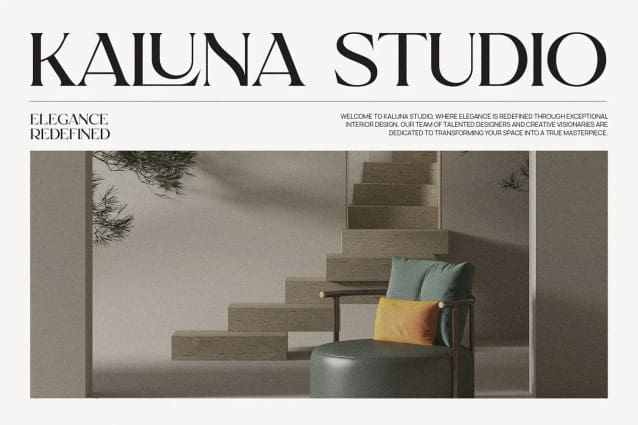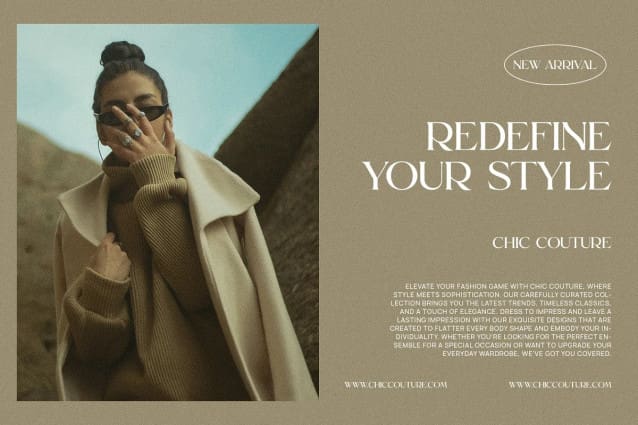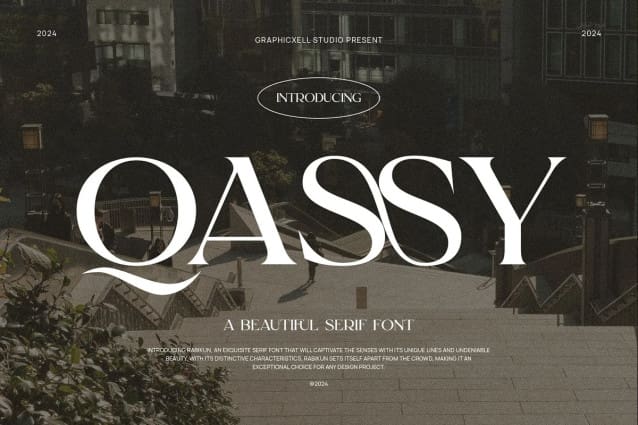
Qassy Font
Qassy Font is a unique and very elegant font for branding and logo designs Elegant serif typeface combined with a classy and modern style. This type of font is very suitable for your various needs such as branding projects, logos, wedding designs, social media posts, advertisements, product packaging, product designs, labels, photography, watermarks, invitations, stationery, and any project, created with high level of readability. you will not be disappointed if you buy this font!!